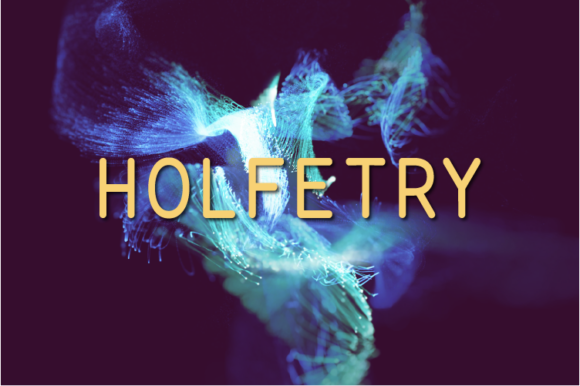
Unleash the Strength of Simplicity with Holfetry Font: The Epitome of Sophistication for Corporate Logos
In a world clamoring for attention, simplicity reigns supreme. Holfetry Font, a minimalist sans serif masterpiece, embodies this philosophy, offering a refreshing respite from the cacophony of ornate fonts. Its clean lines and understated elegance evoke a sense of professionalism and trustworthiness, making it the perfect choice for corporate logos seeking to convey a message of clarity and confidence.
Holfetry's minimalist design is not merely an aesthetic choice; it serves a strategic purpose. In a digital landscape saturated with visual noise, simplicity cuts through the clutter, ensuring your logo stands out and resonates with your target audience. The font's unassuming nature allows your company's name and message to take center stage, fostering an instant connection with customers who appreciate straightforward communication.
Beyond its visual appeal, Holfetry Font possesses a remarkable versatility that adapts seamlessly to a wide range of applications. Whether gracing the letterhead of a Fortune 500 company or adorning the business cards of a budding entrepreneur, Holfetry effortlessly exudes professionalism and sophistication. Its clean lines translate beautifully across various media, from print to digital, ensuring your logo maintains its impact in any context.
For web designers seeking a font that complements their creative vision, Holfetry Font emerges as an inspired choice. Its understated elegance lends a touch of sophistication to website layouts, allowing other design elements to shine without overpowering them. Holfetry's clarity ensures seamless readability, enhancing the user experience and encouraging visitors to delve deeper into your website's content.
In the realm of corporate identity, Holfetry Font emerges as an invaluable asset. Its ability to convey professionalism, trustworthiness, and simplicity aligns perfectly with the goals of any business seeking to establish a strong and lasting brand identity. By choosing Holfetry as your logo font, you make a statement of confidence and competence, inviting customers to engage with your brand and trust in the quality of your products or services.
Embrace the power of simplicity and elevate your corporate logo to new heights with Holfetry Font. Let its clean lines and understated elegance speak volumes about your brand's professionalism and dedication to excellence. Download Holfetry Font today and embark on a journey of visual clarity and sophistication that will leave a lasting impression on your customers.